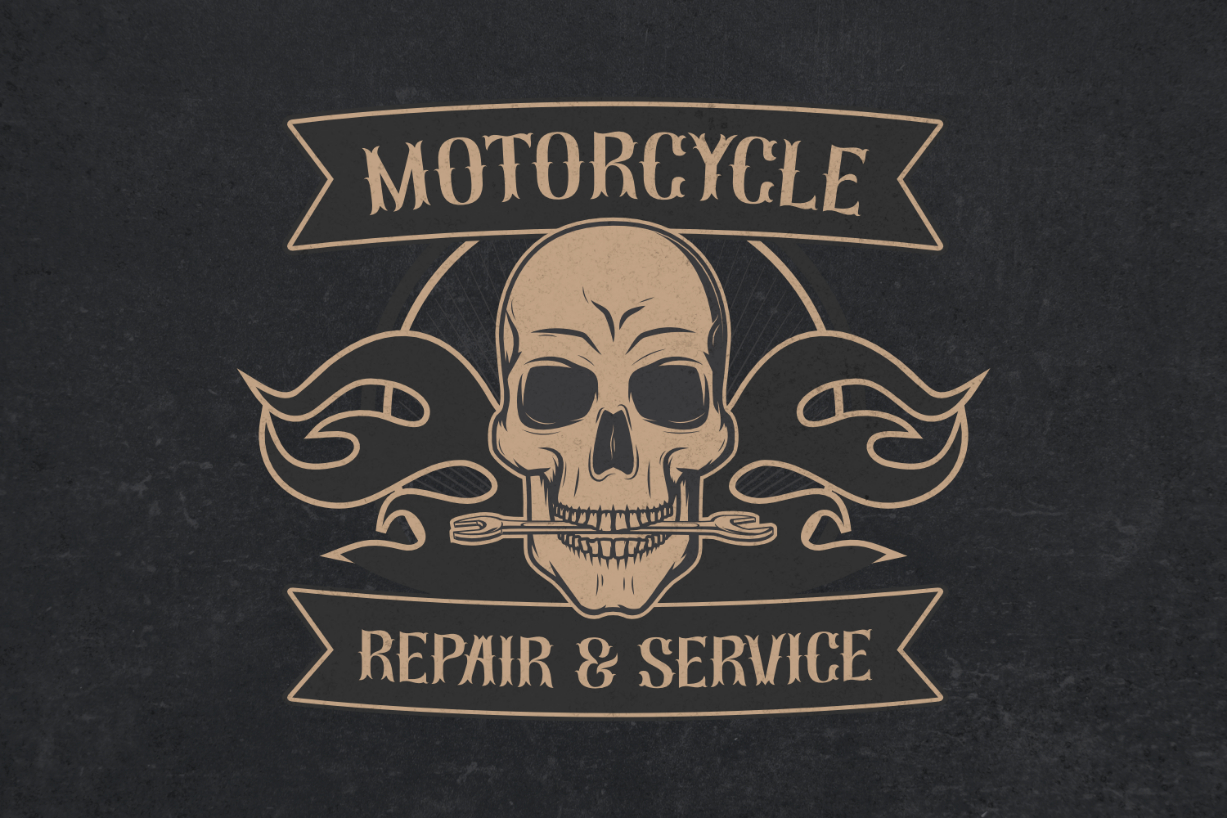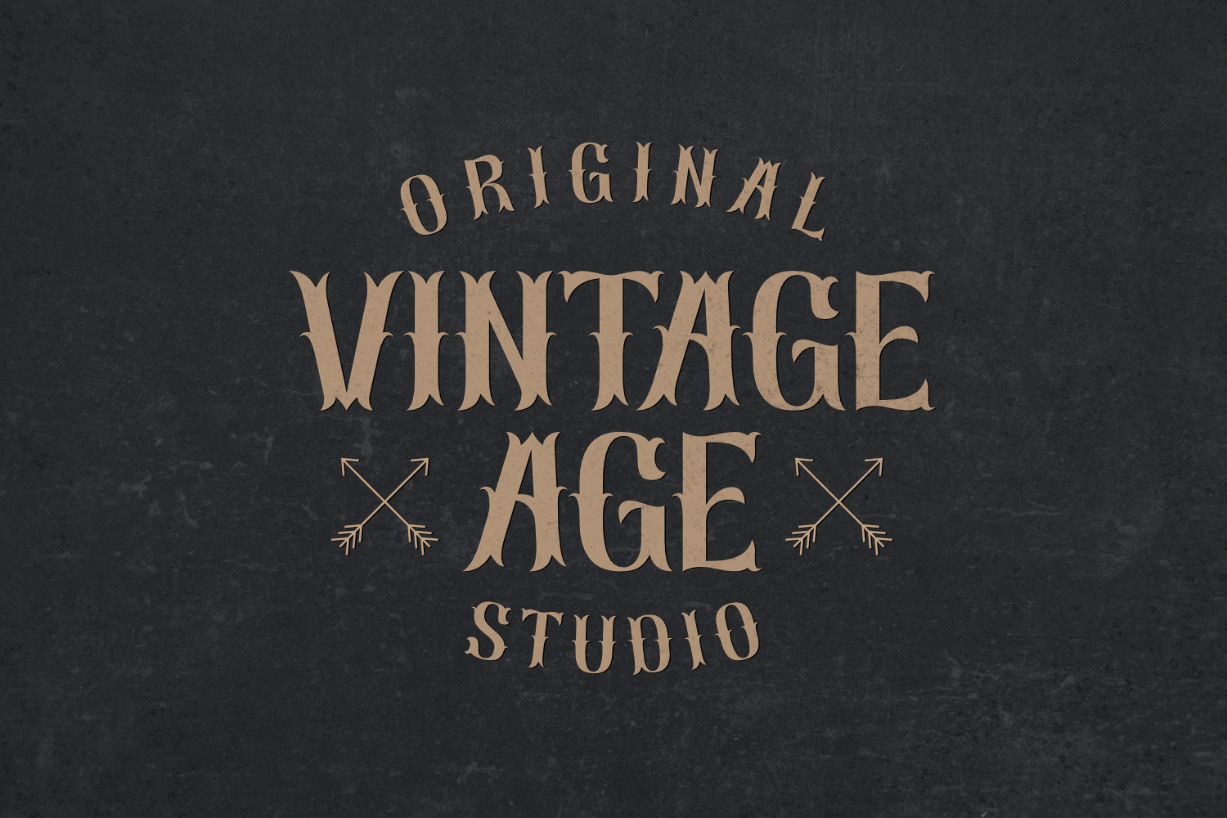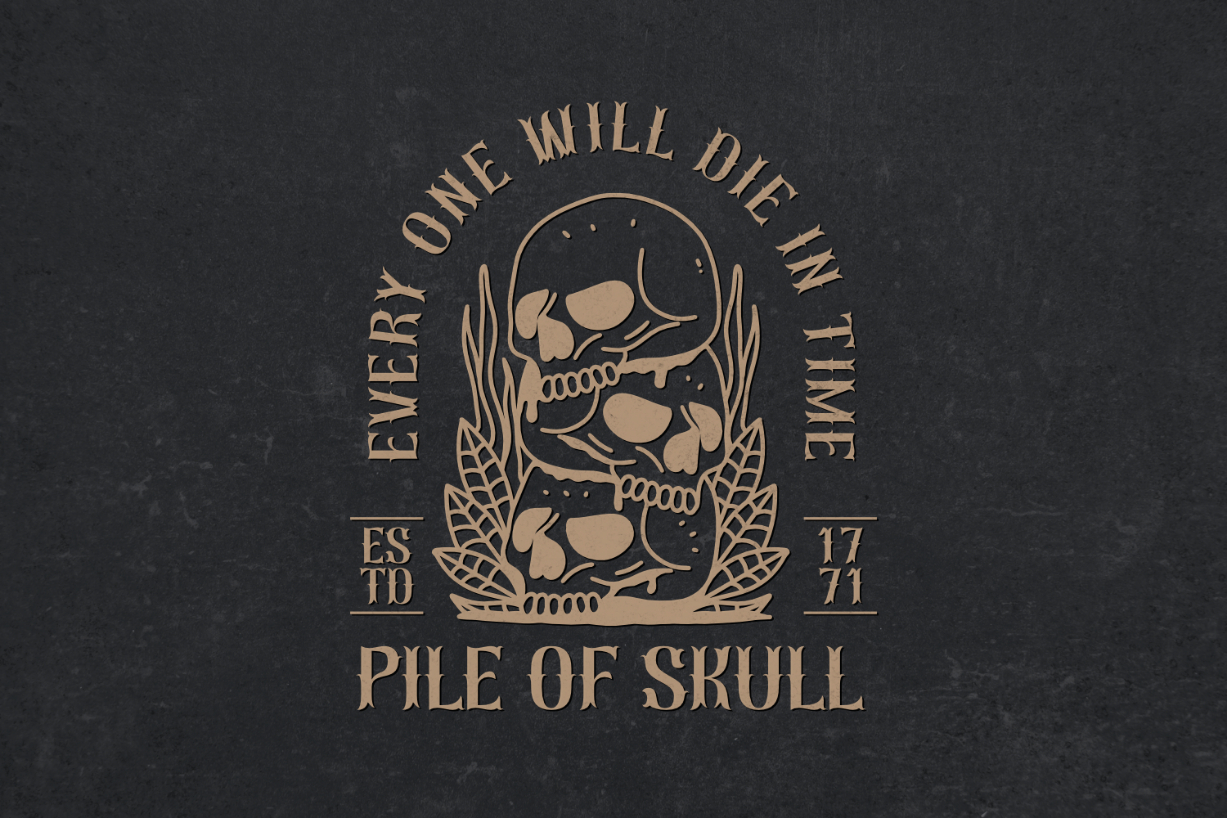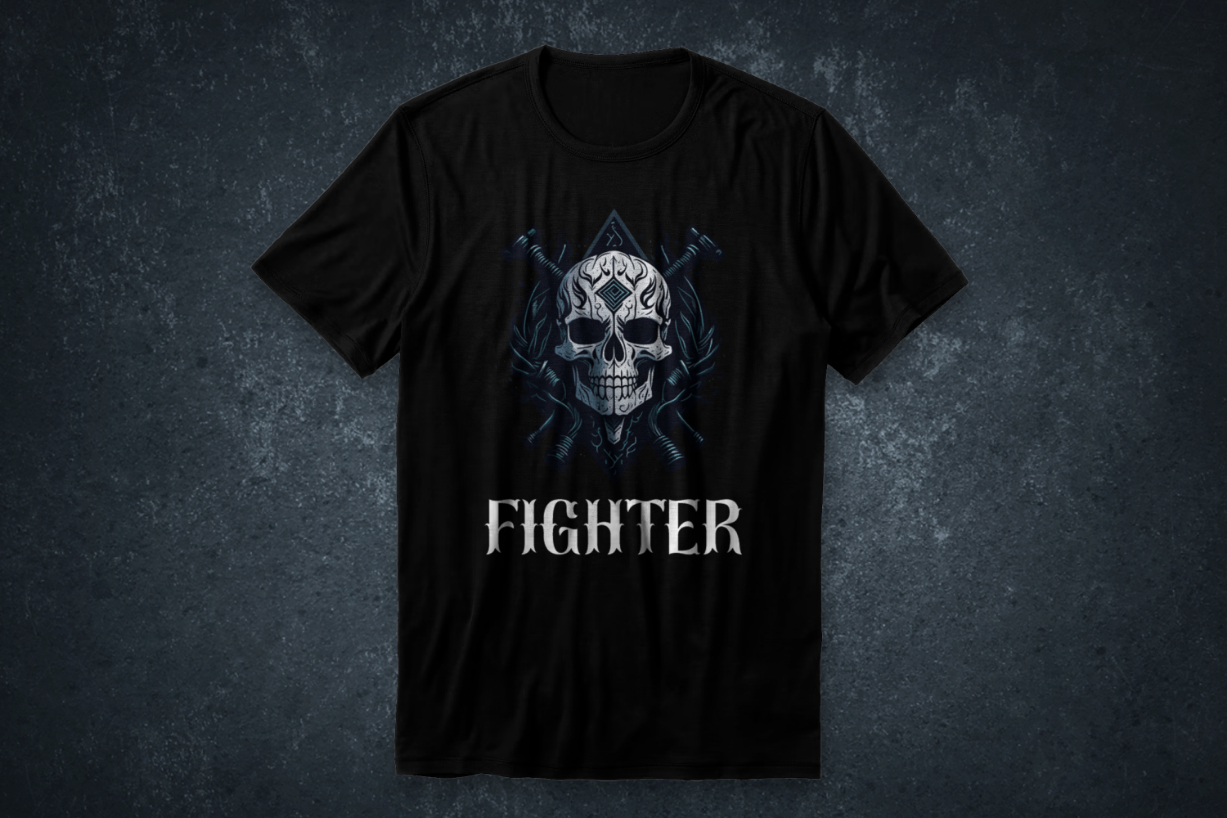
Motar Font
About Motar Font
Motar is a stunning vintage-style blackletter font. These finely stylized characters have everything you need to create impressive and memorable typography. Unleash your creativity and use this fantastic font for various projects – posters, branding, logos, banners, advertisements, signs, titles, and more.